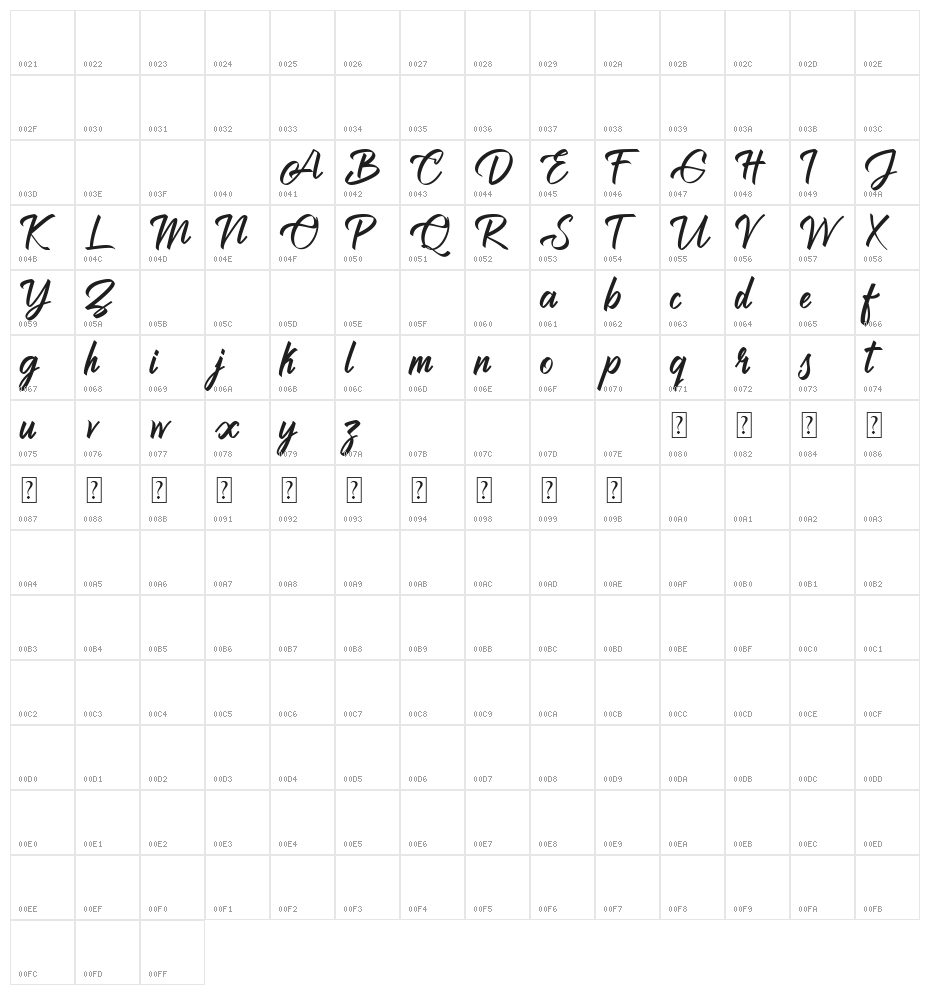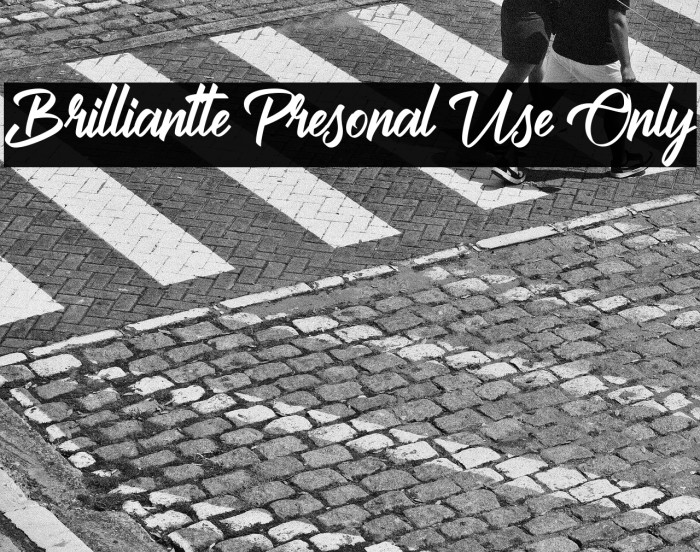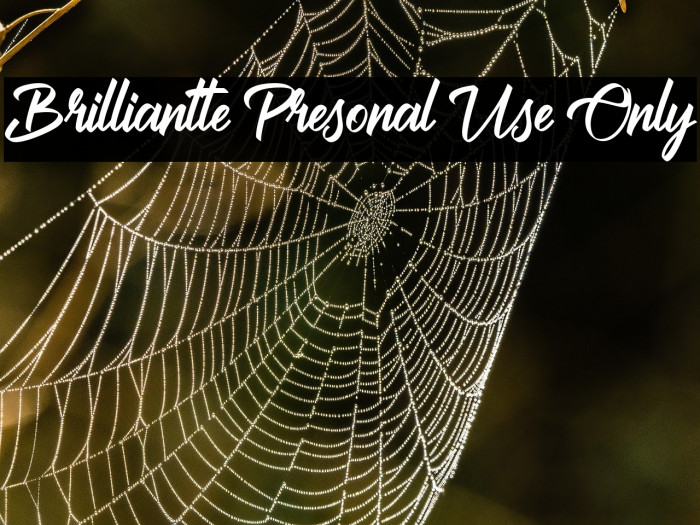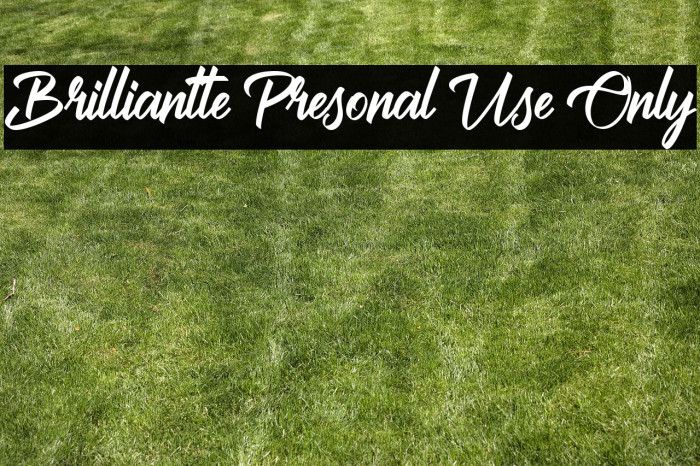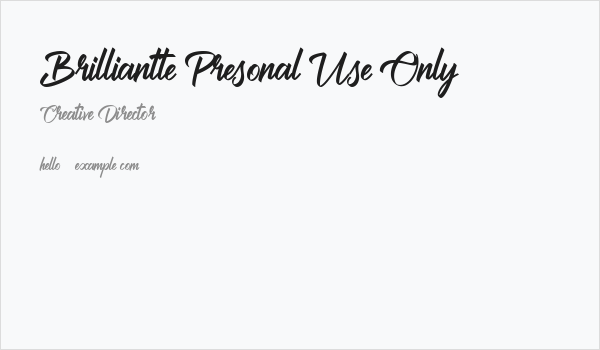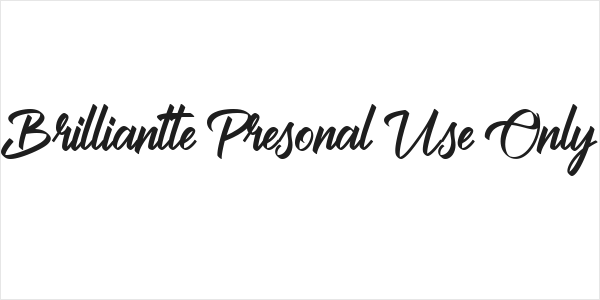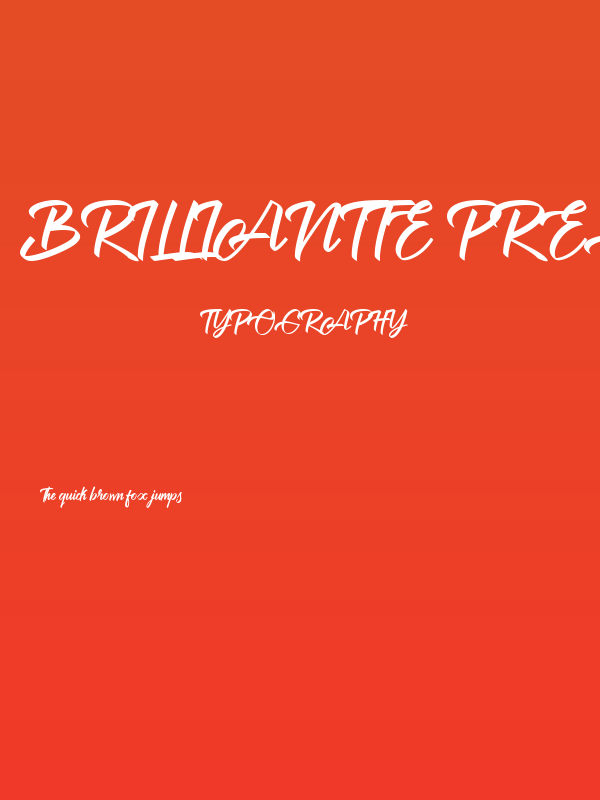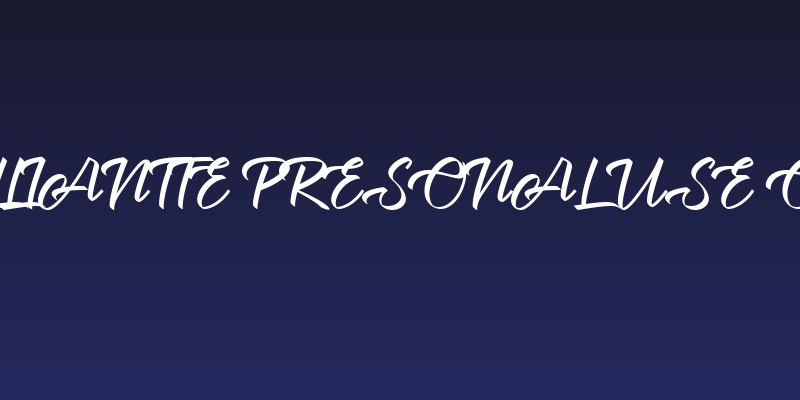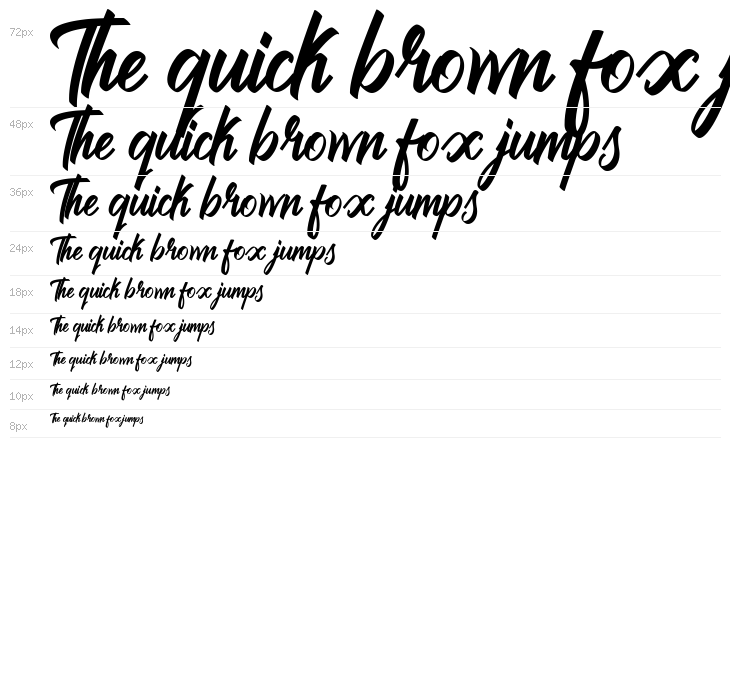
Brilliantte Presonal Use Only Font
Brilliantte Presonal Use Only Description
This font exudes a sense of elegance and sophistication with its flowing, cursive style. The characters are interconnected, creating a seamless and fluid appearance. The uppercase letters are slightly more ornate, with flourishes that add a touch of drama. The lowercase letters maintain a consistent style, with smooth curves and a balanced weight. The overall look is both modern and classic, making it versatile for various design needs. The font's boldness ensures readability while maintaining its decorative appeal.
| Proposed Projects | Ideal for wedding invitations, branding, logo design, and elegant packaging. |